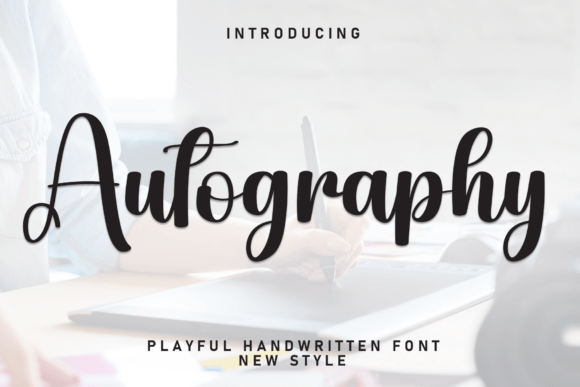
Unleash the Joy of Handwritten Charm
Do you remember the thrill of creating a heartfelt birthday card for a loved one, or the excitement of designing a wedding invitation that captures the essence of a special day? Those moments of creative expression are what make design truly special. And now, we’re excited to introduce a font that will bring even more joy to your creative endeavors: the Autography Font.
This charming handwritten display font is designed to infuse a touch of sweetness and friendliness into all your designs. With its delightful quirks and playful feel, the Autography Font is the perfect addition to any project that needs a dash of personality. Whether you’re a seasoned designer or a creative enthusiast, this enchanting font is sure to become a trusted companion in your design journey.
Autography Font Key Features
- Character Set: This font includes a wide range of characters, including Latin, Cyrillic, and Greek alphabets, as well as various symbols and punctuation marks.
- Size and Resolution: Autography Font is designed to work well at various sizes and resolutions, from 12-point text to large display fonts, with optimal results at 300 DPI (dots per inch).
- Unique Characteristics: Autography Font features a unique, handwritten style with subtle flourishes and variations, giving it a personal and expressive touch.
- Font Family: Autography Font is part of a larger font family, offering multiple weights and styles to suit various design needs, from light and elegant to bold and dramatic.
- Scalability: Autography Font is designed to be highly scalable, allowing it to maintain its quality and legibility even at small sizes or when enlarged for display purposes.
Autography Font Review
When I first laid eyes on the Autography Font, I was immediately drawn to its elegant and sophisticated design. The subtle curves and refined lines evoke a sense of luxury and professionalism. ✨ The font’s versatility is another major plus, as it can be used for both formal and informal projects.
- Beautifully crafted letterforms
- Wide range of language support
- Works well in various font sizes and styles
- Comes in several weights and italics
However, there are a few limitations to keep in mind. ✠ The font’s overall legibility can be affected by the surrounding text and design elements. Additionally, the font’s complexity may make it difficult to use in certain situations, such as on small screens or in low-resolution environments.
- Legibility may be affected by surrounding design elements
- Complexity may make it difficult to use in certain situations
- Limited support for non-Latin scripts
Overall, I would say that the Autography Font is a solid choice for designers who need a high-end, professional font. While it may have some limitations, its beauty and versatility make it a valuable addition to any design arsenal.
Tips: Use Autography Font for creative titles and headings to add a personal touch to your designs.
Tips: Use Autography Font for custom logos, invitations, and other creative projects where a personal touch is desired.
Tips: Use Autography Font for presentations, reports, and other documents where a unique font can help convey a message.
Autography Font is ideal for:
- Creative titles and headings
- Custom logos and branding
- Invitations and event materials
- Presentation and report headers
Alternatives to Autography Font for Designers
Lato is a sans-serif font designed by Łukasz Dziedzic. It is a modern and clean font suitable for both headings and body text. Lato is ideal for use in digital products, websites, and mobile applications. It offers a wide range of weights and styles, making it a versatile choice for designers.
Comparison to Autography Font: Lato is more minimalist and lacks the distinctive flair of Autography Font. However, it is more versatile and suitable for a wider range of design applications.